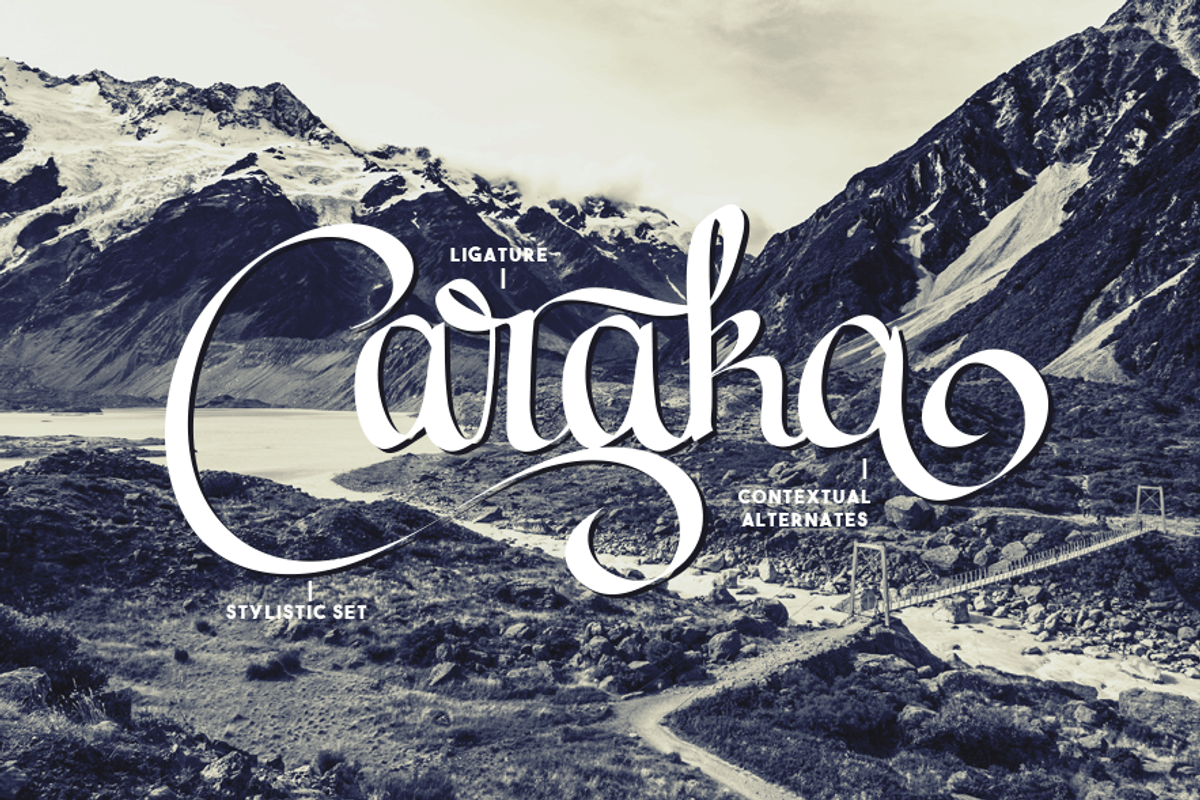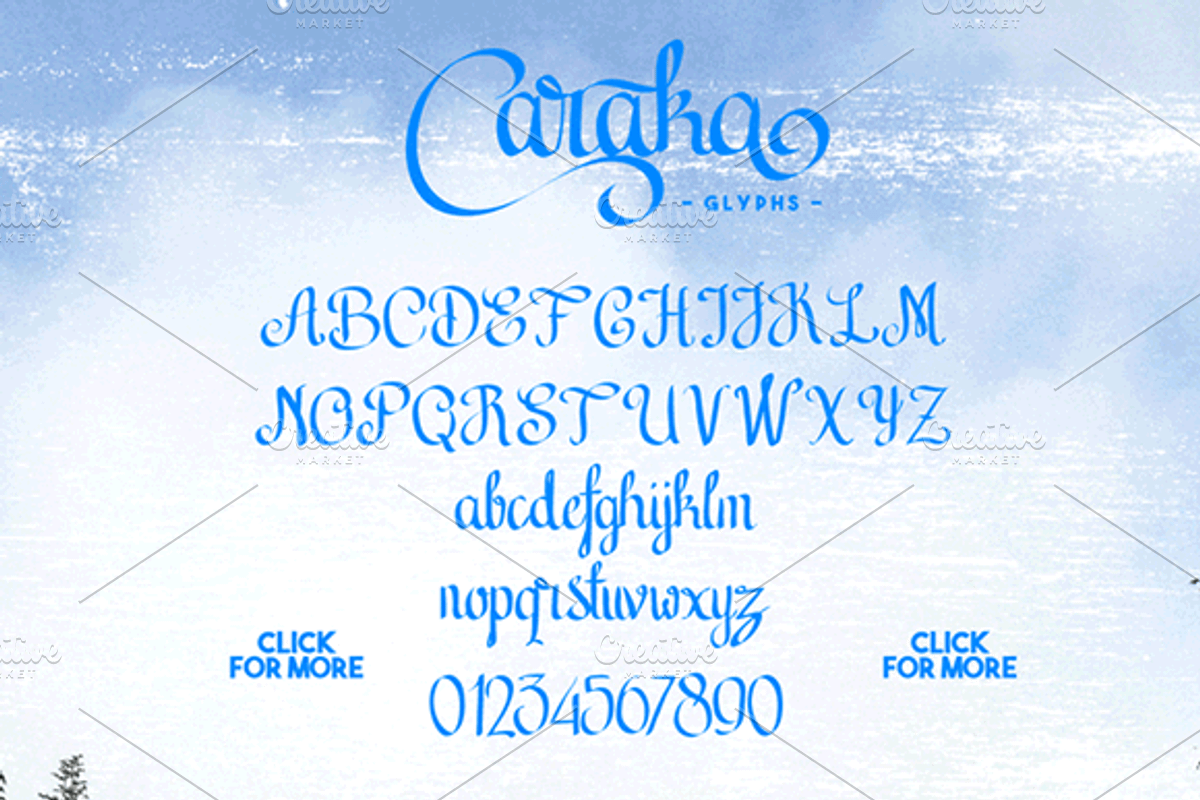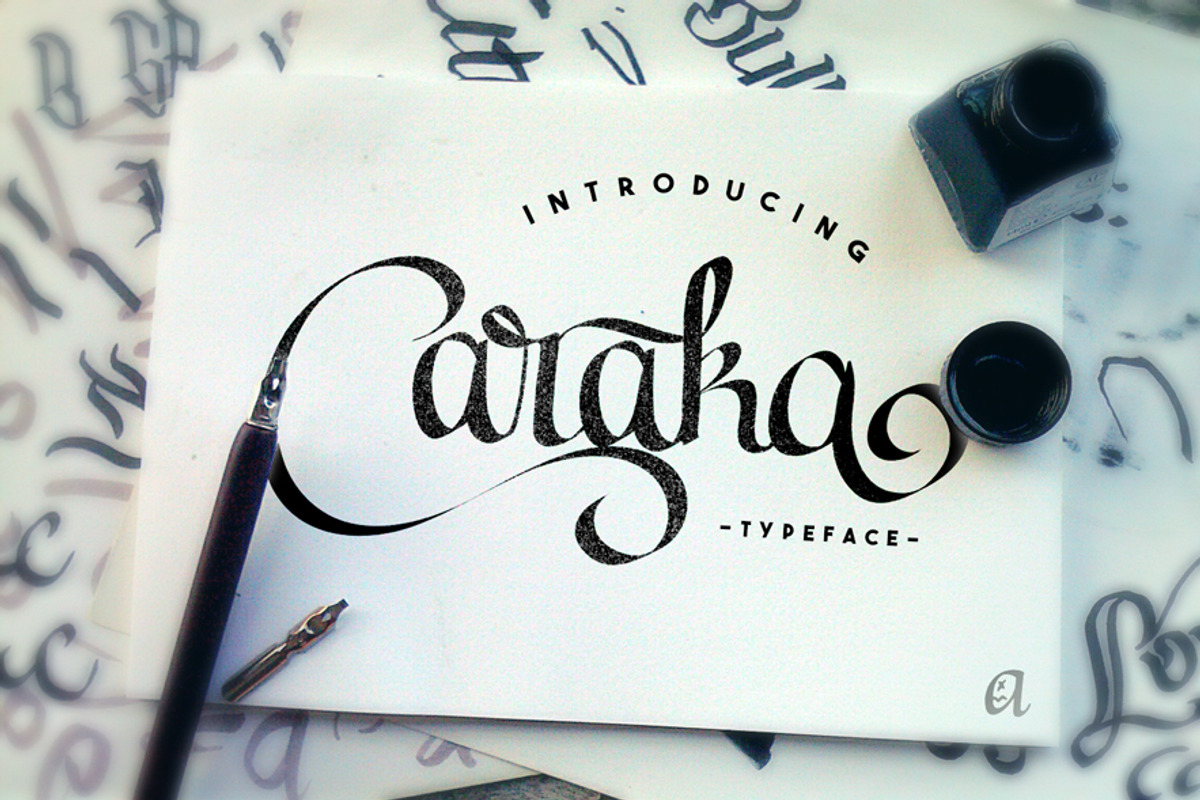
Caraka - Script Font
Introducing new script calligraphy typeface, Caraka. You can use this font for various purposes.such as letterhead, logo, poster title, badge,book cover, etc.
OpenType features with Ligatures, Stylistic Alternates, Contextual Alternate , and Some characters from Styistic set,that allows you to mix and match pairs of letters to fit your design.